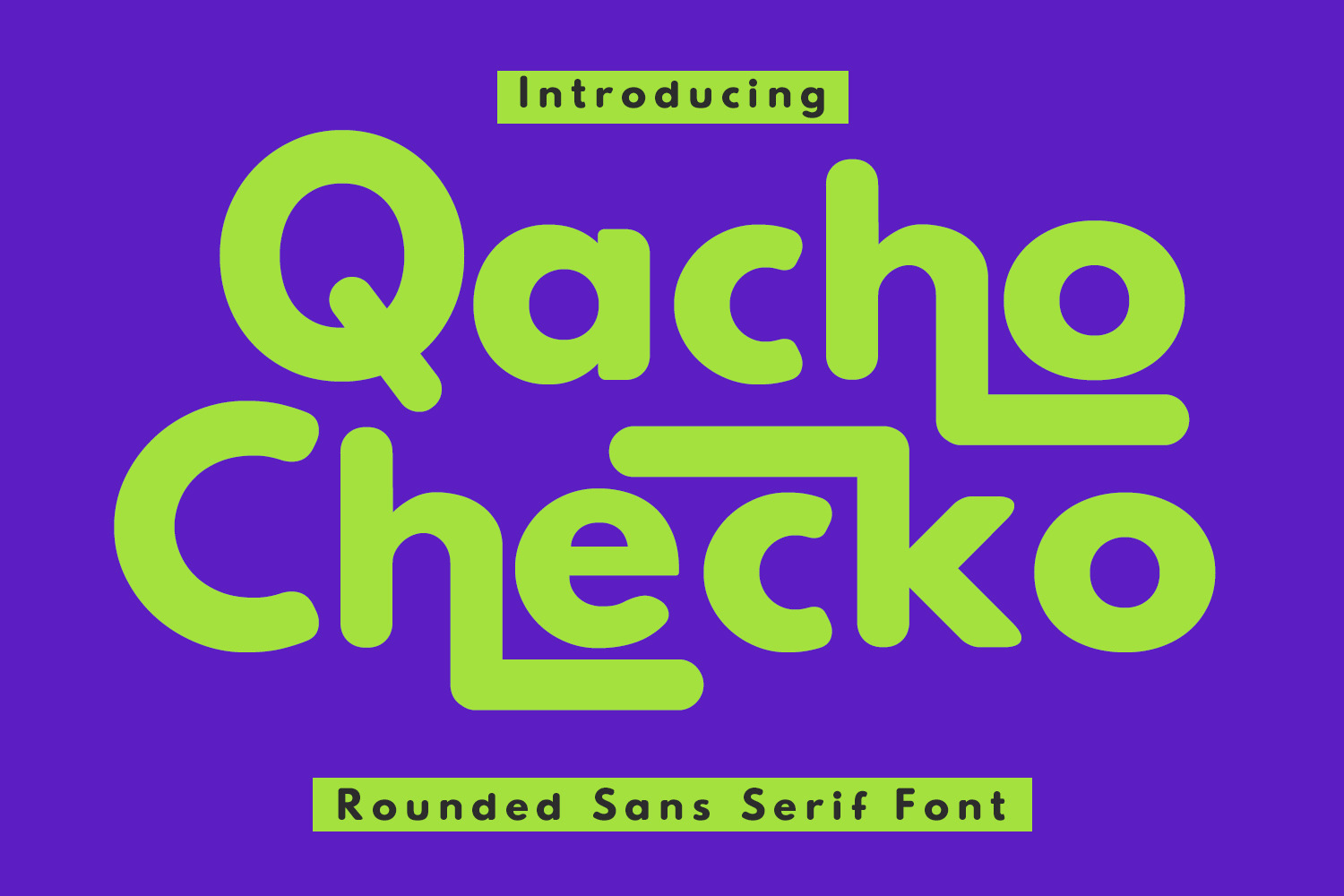
Qacho Checko Rounded Sans Serif Font
Qacho Checko is a casual sans serif rounded display font. With bold stroke, fun character with a bit of ligatures and alternates. To give you an extra creative work. Qacho Checko font support multilingual more than 100+ language. This font is good for logo design, Social media, Movie Titles, Books Titles, a short text even a long text letter and good for your secondary text font with sans or serif. Make a stunning work with Qacho Checko font.